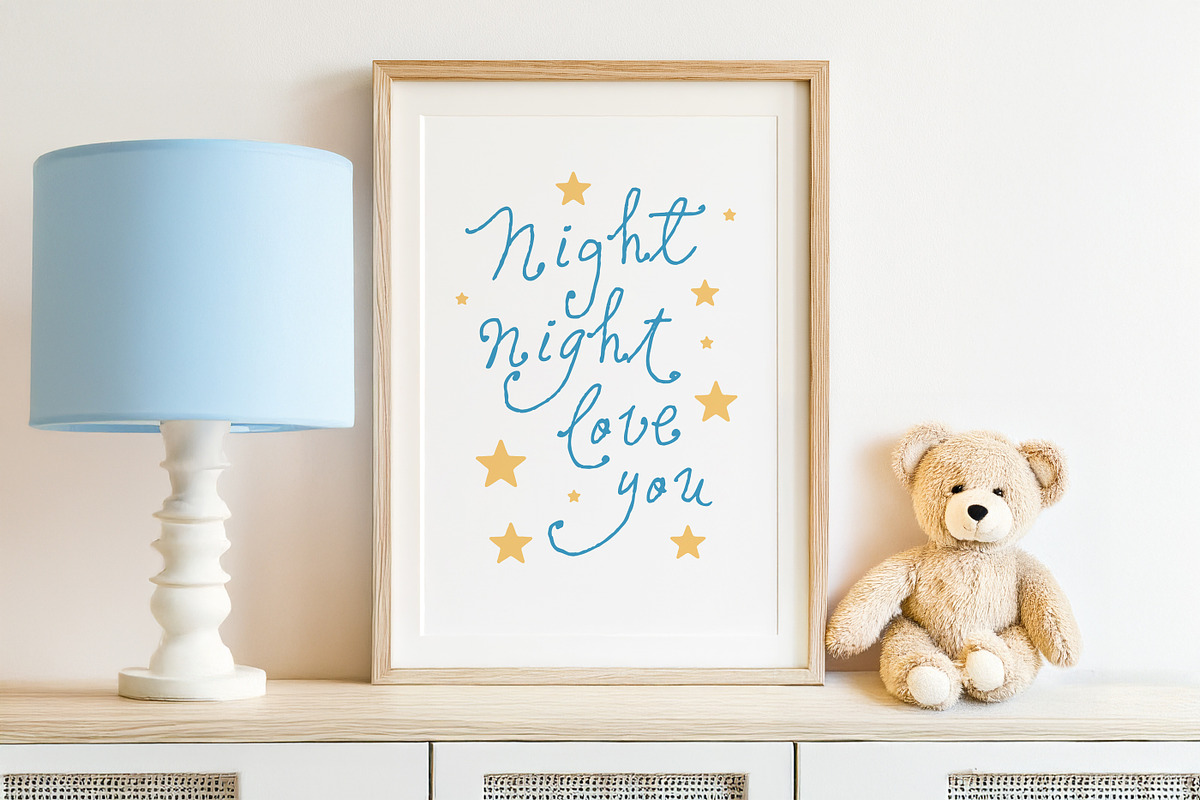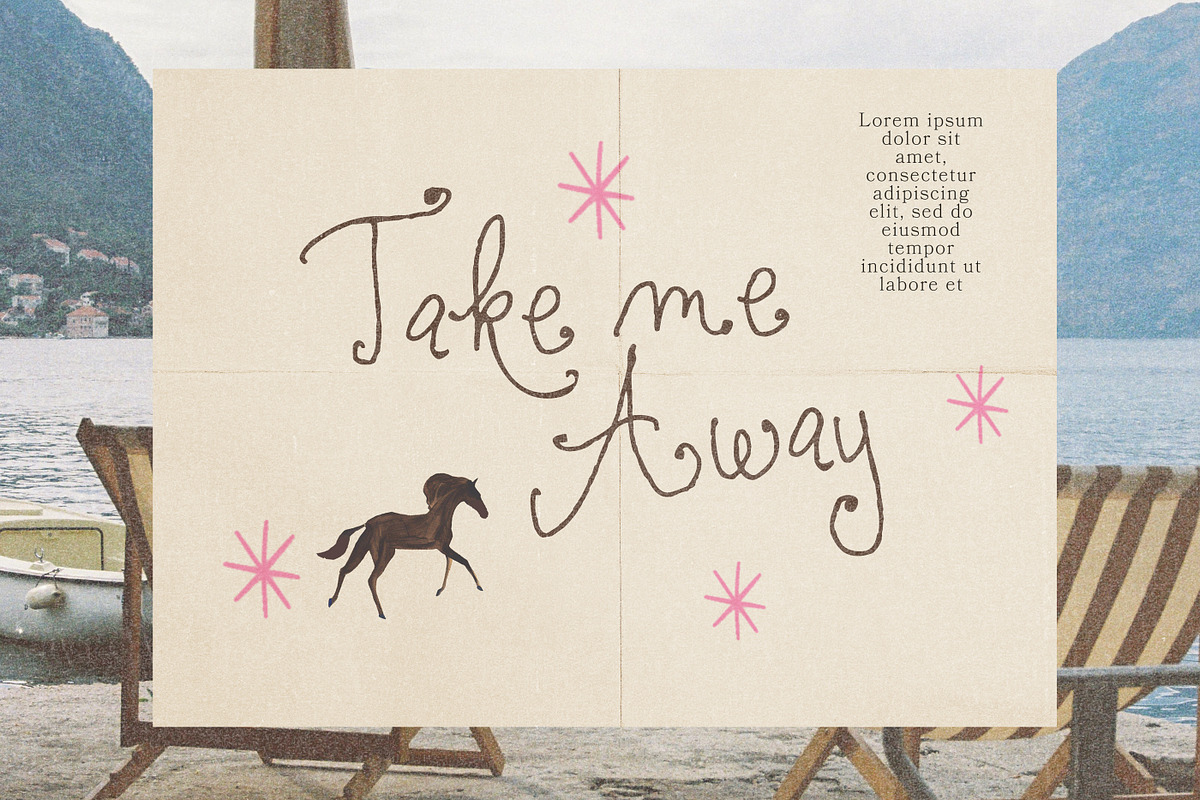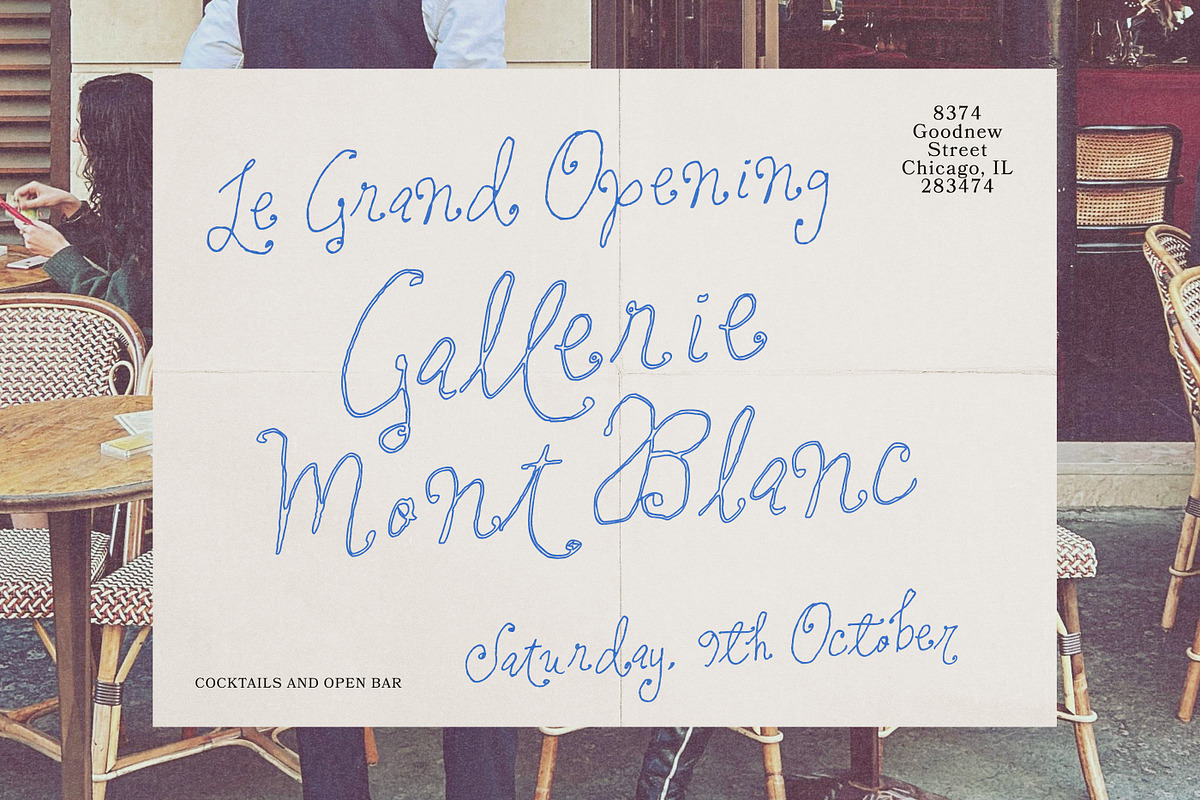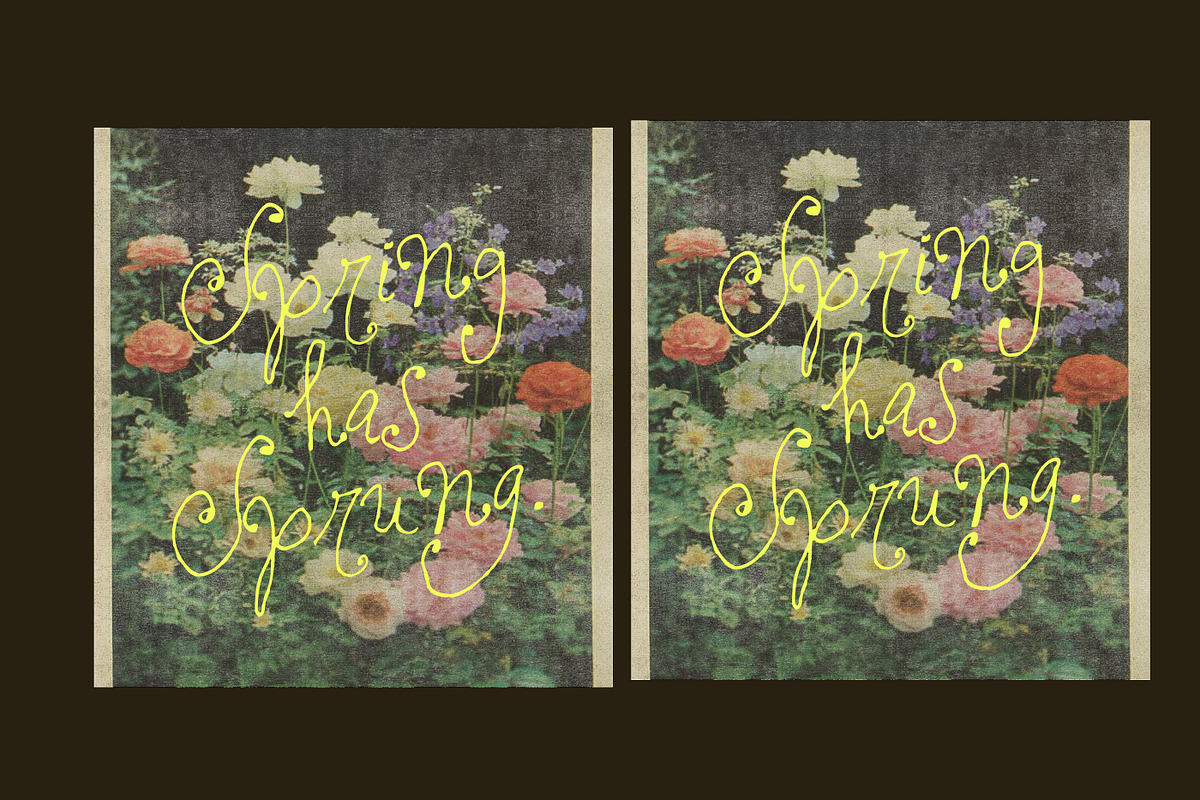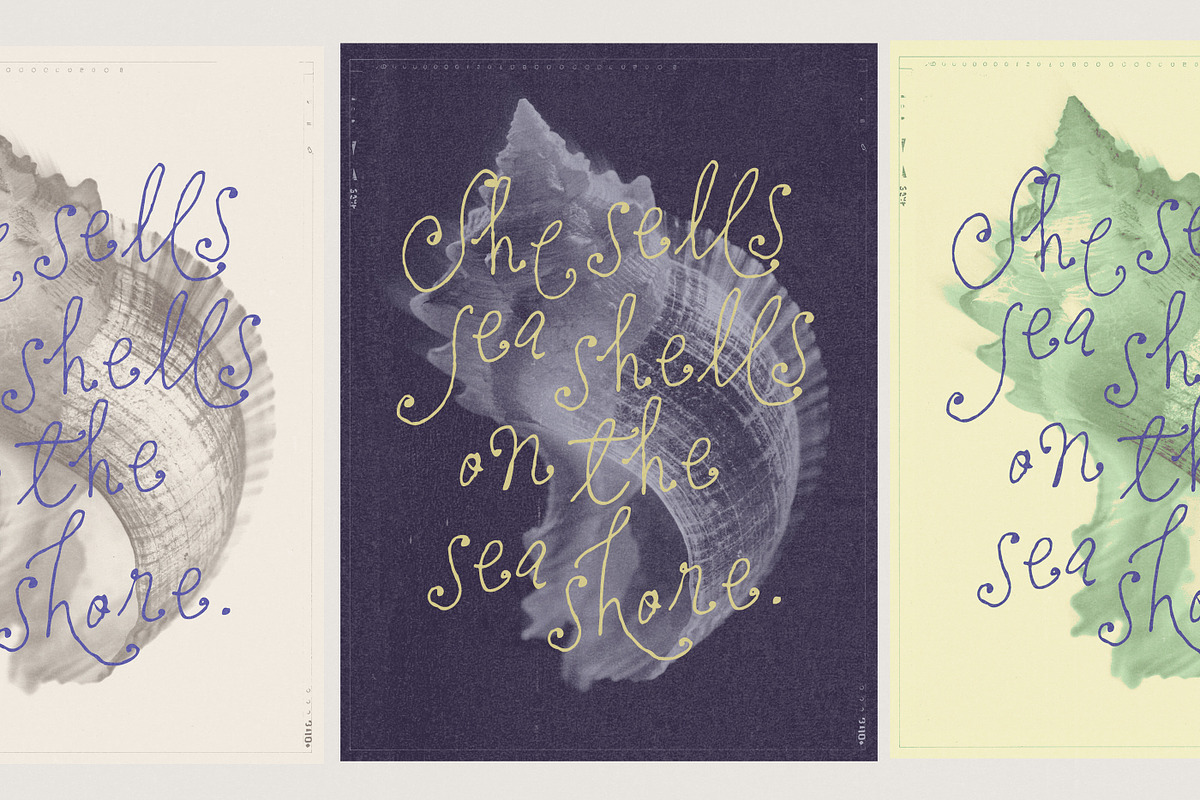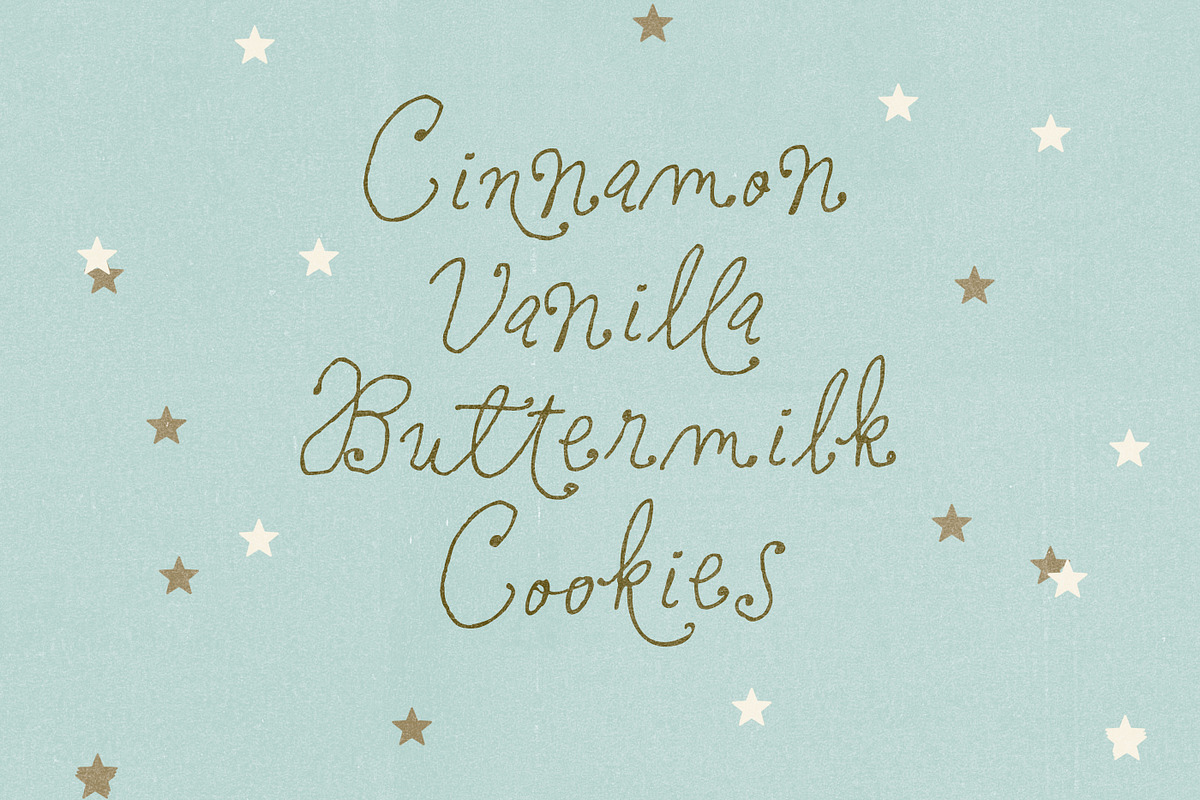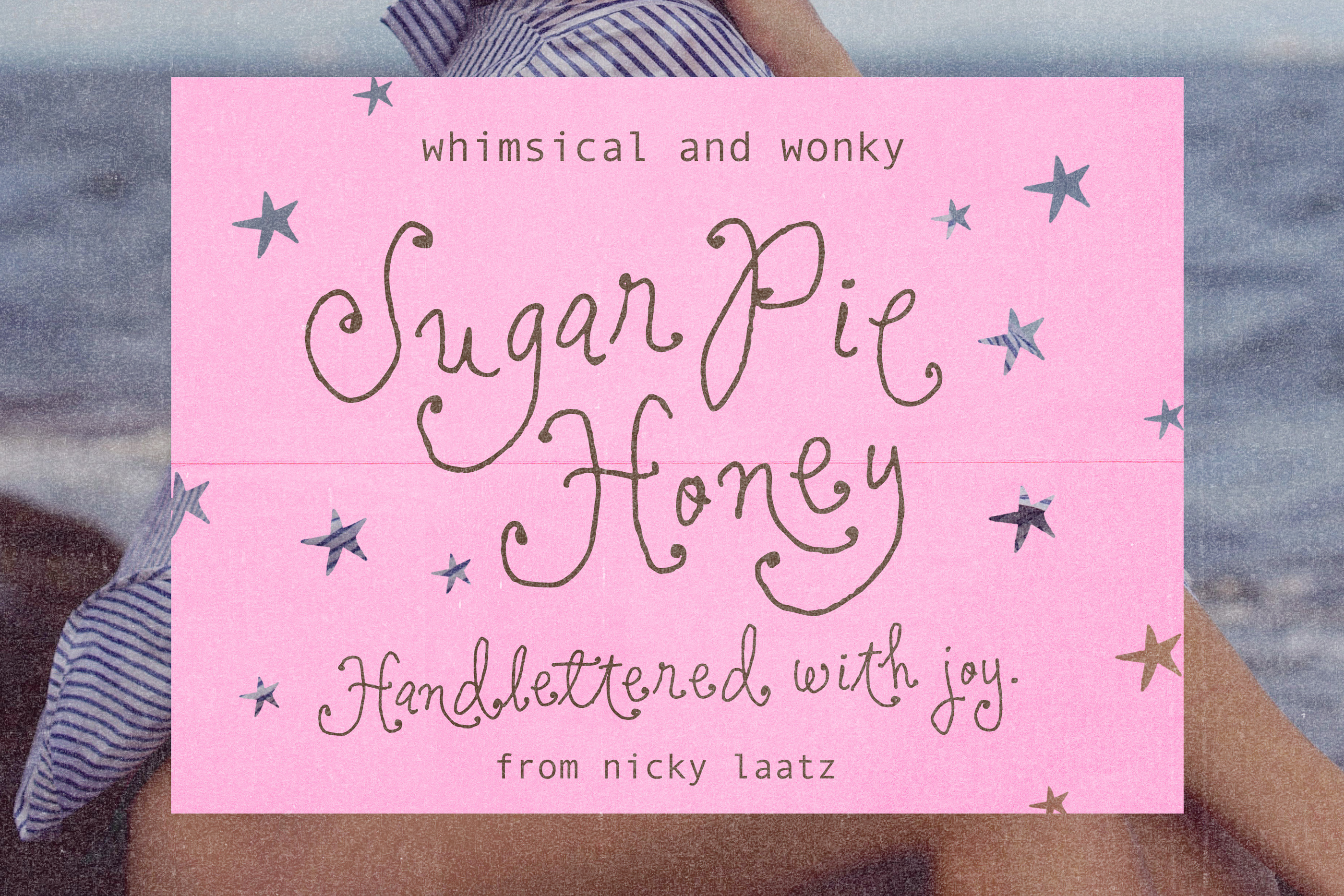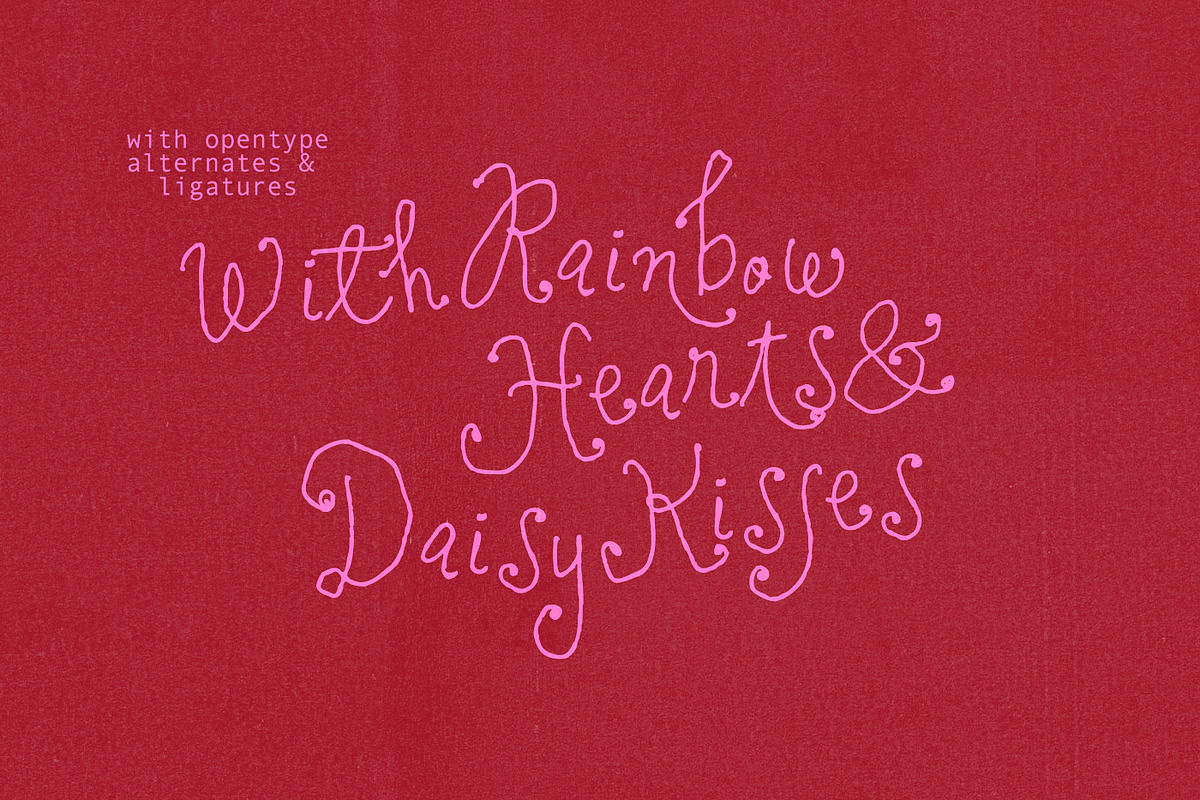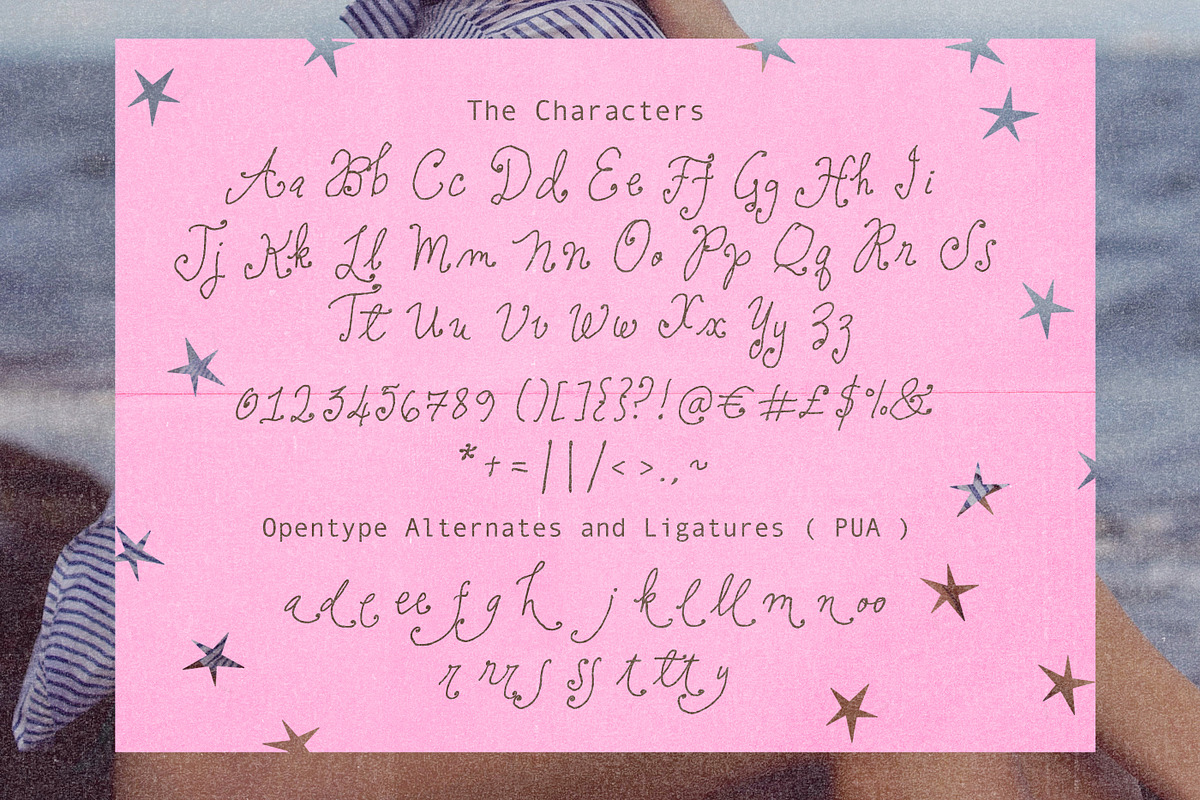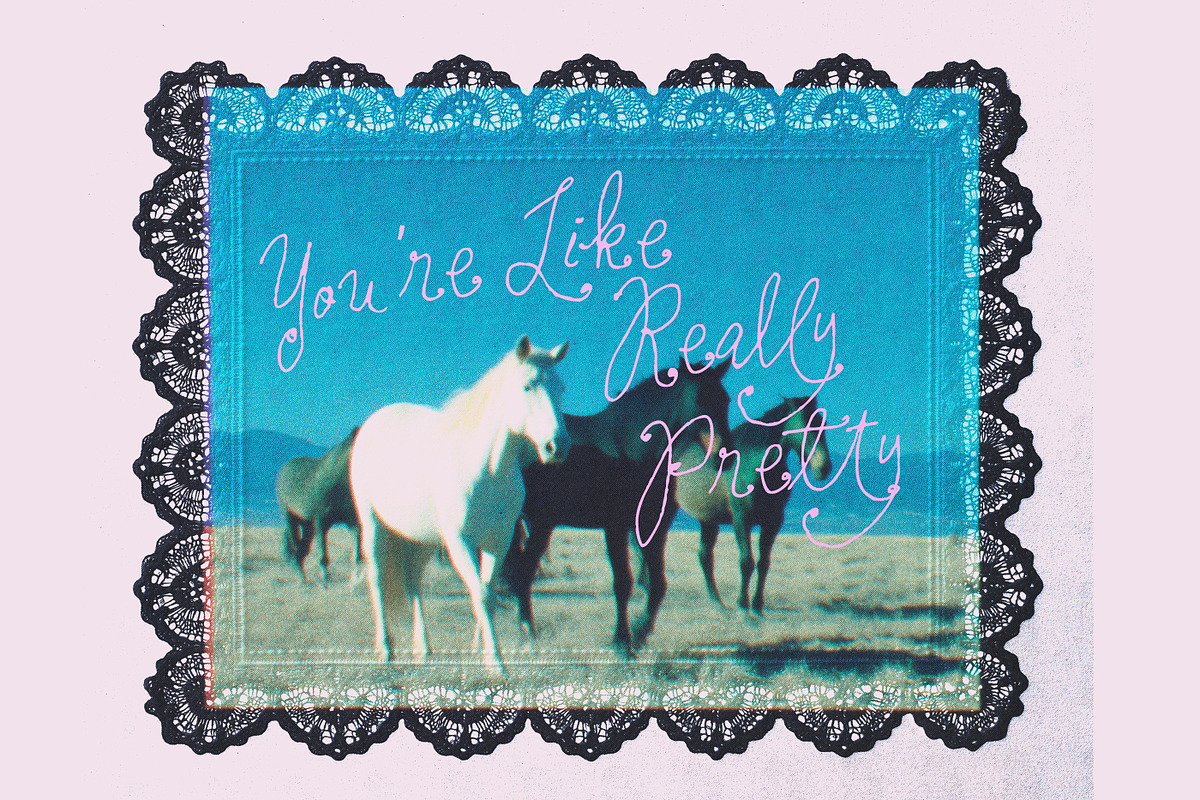
Sugar Pie Honey Curly Font
Say hello to Sugar Pie Honey — a wonky, whimsical display font bursting with personality and charm, while still staying perfectly on trend! With her playful curves, dreamy aesthetic, and handmade feel, she’s designed to bring a touch of magic and creativity to every project.
Great dreamy scrapbooking and journalling , fairytale wedding branding , fun greeting cards, kids prints, nursery designs, preppy album art, stand-out flyers ,trendy posters and so much more!
This font comes in 10 unique styles, giving you plenty of options to mix, match, and create truly one-of-a-kind designs. It also includes beautiful OpenType Ligatures and Alternates, so be sure to turn those features on to unlock even more whimsical details and magical letter combinations.